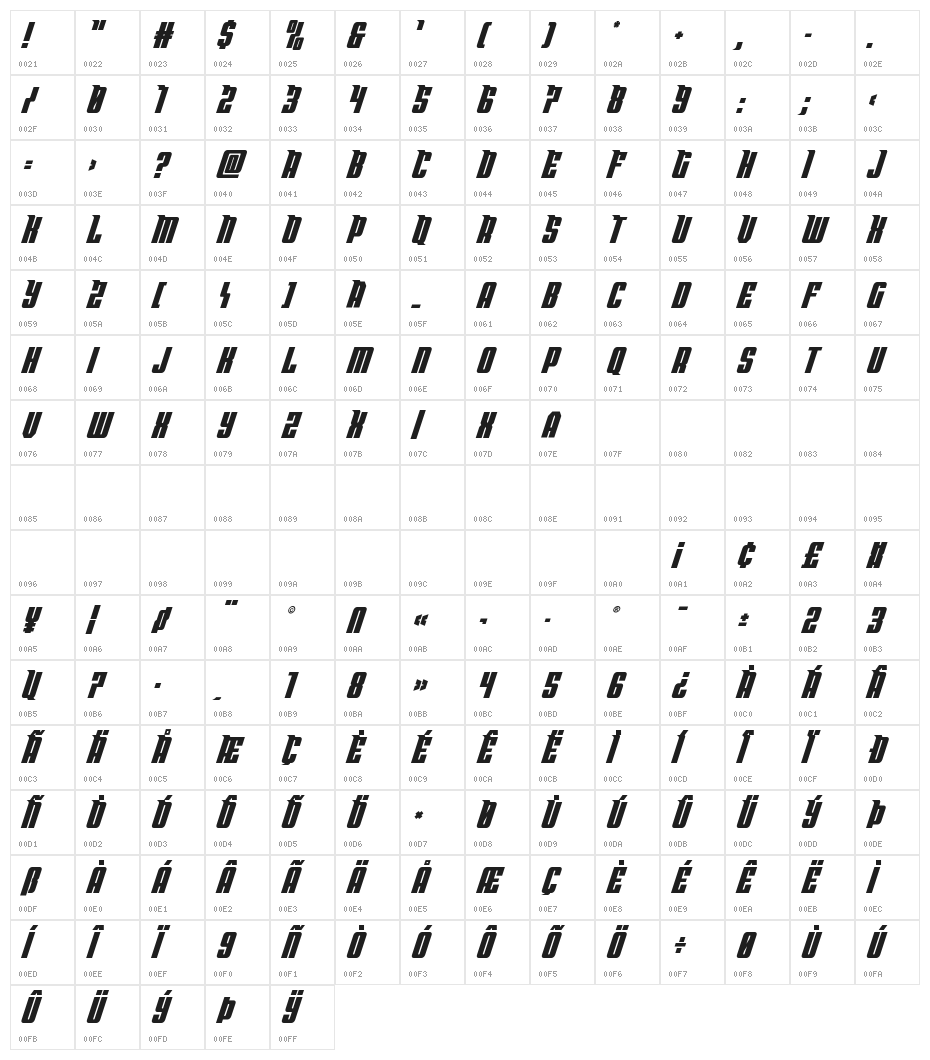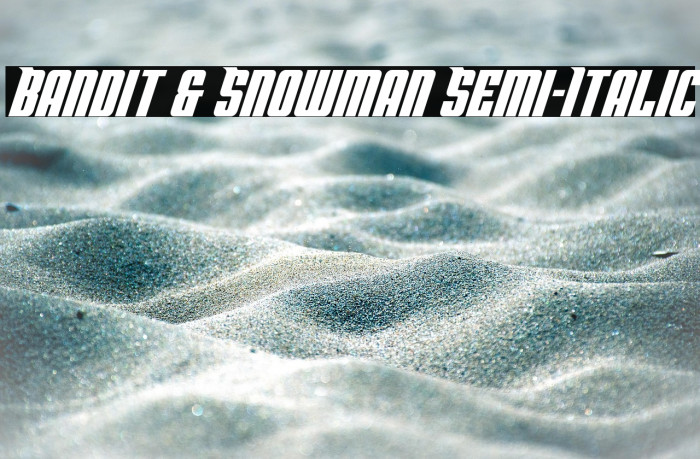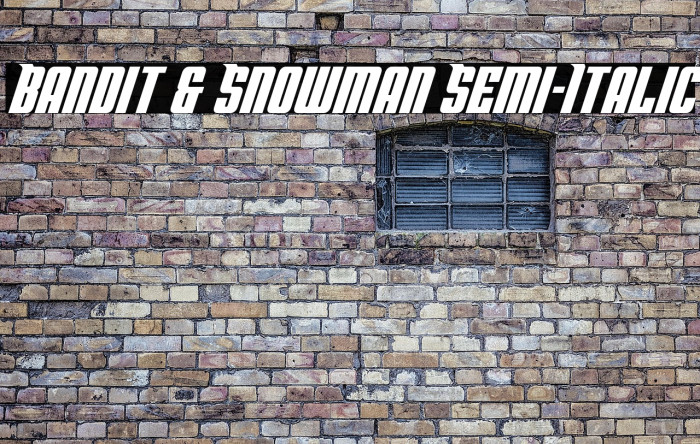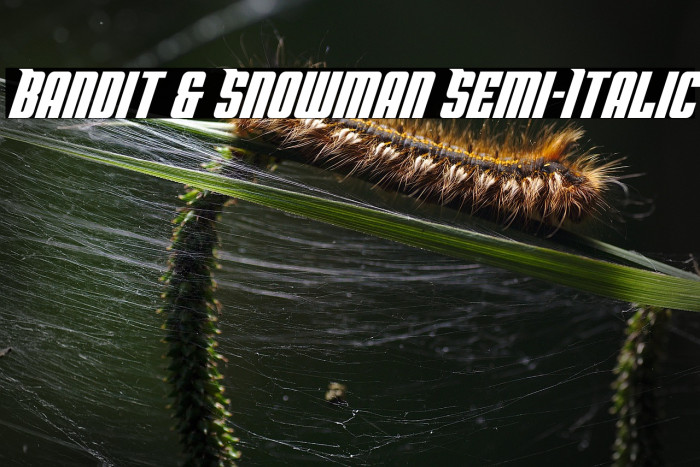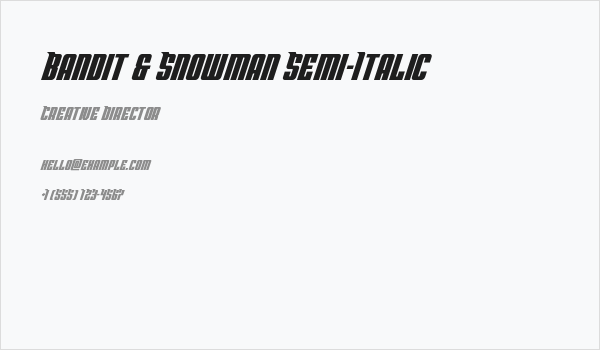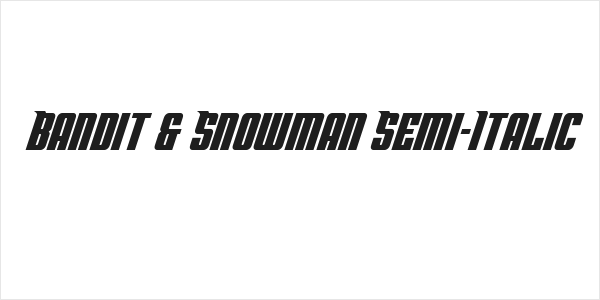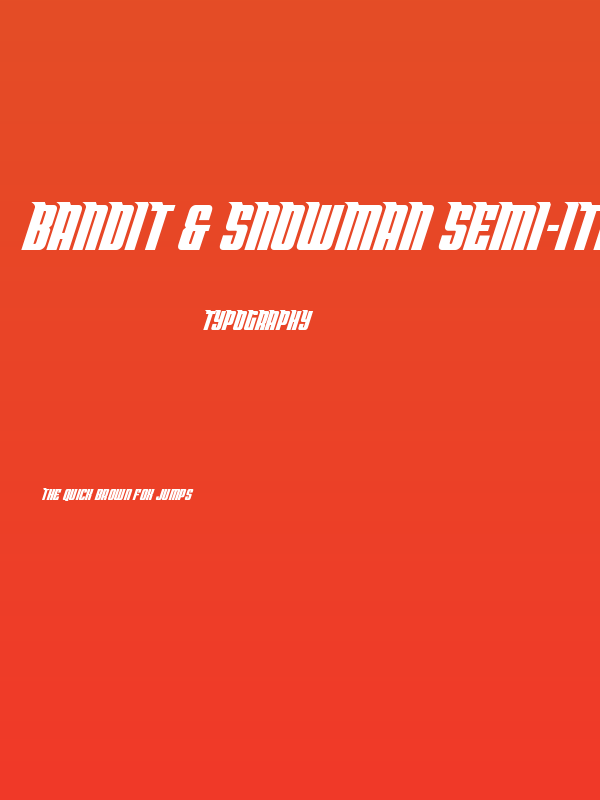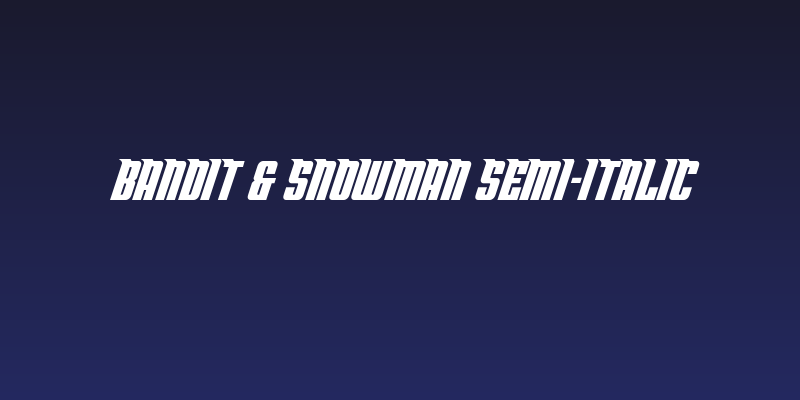
Bandit & Snowman Semi-Italic Font
Bandit & Snowman Semi-Italic Description
This font features a bold and dynamic style with a strong slant, giving it a sense of motion and energy. The characters are wide and have a distinct geometric structure, with sharp angles and clean lines. The uppercase and lowercase letters maintain a consistent style, while the numerals and special characters complement the overall design. The font's boldness and italicized form make it stand out, suitable for attention-grabbing headlines or impactful logos. Its unique style is both modern and slightly retro, reminiscent of vintage racing or sports themes.
| Overall Style | Modern, Vintage |
| Proposed Projects | Ideal for sports branding, dynamic posters, racing themes, and bold headlines. |